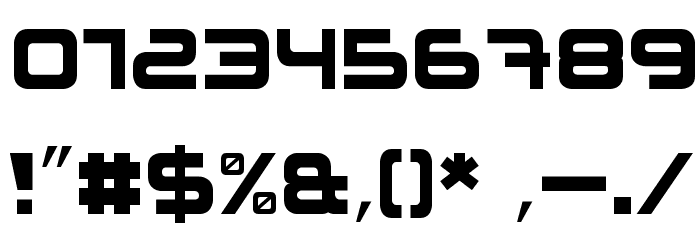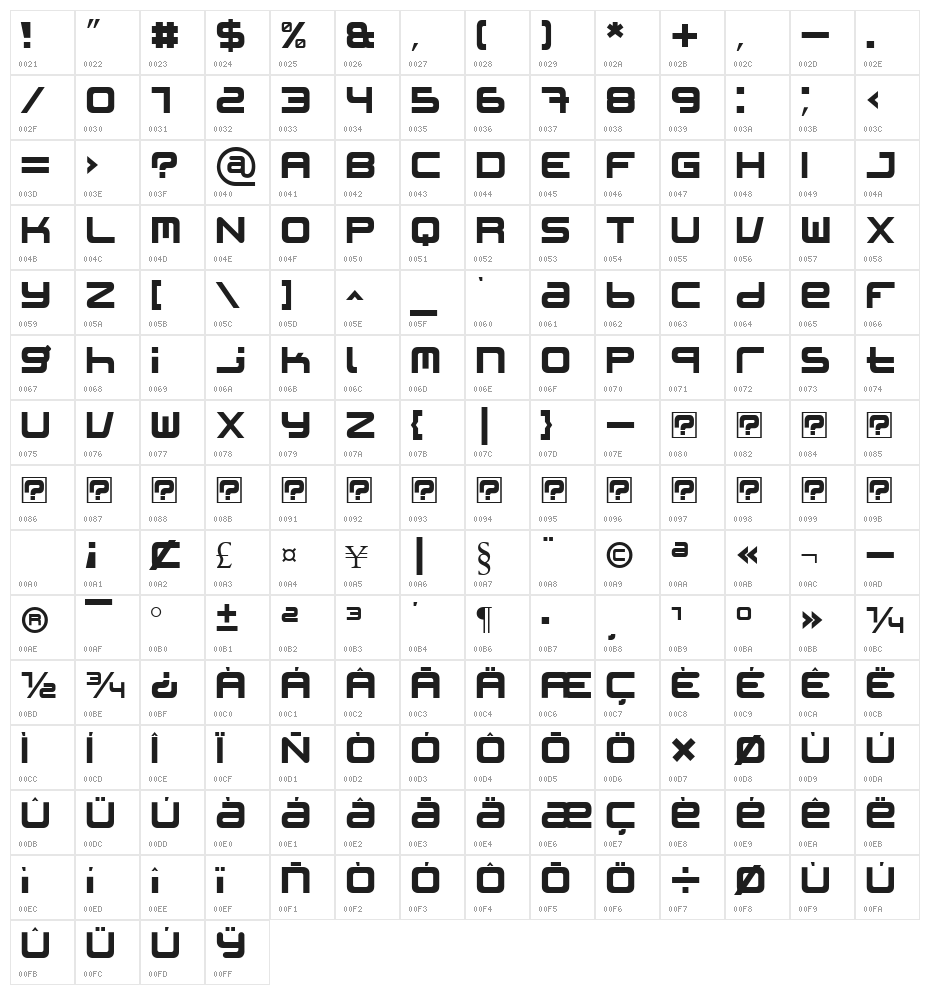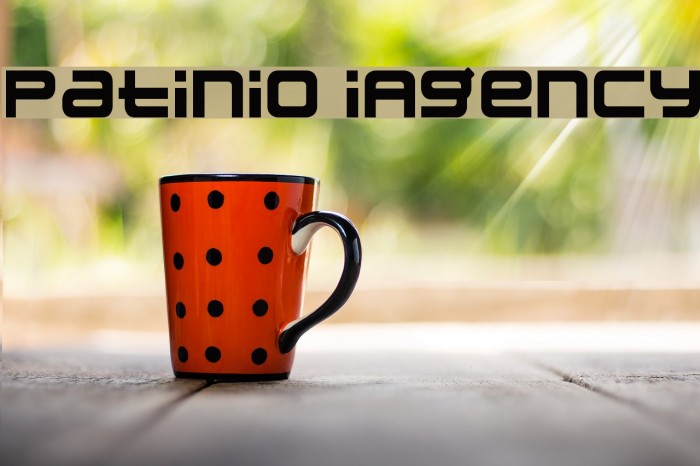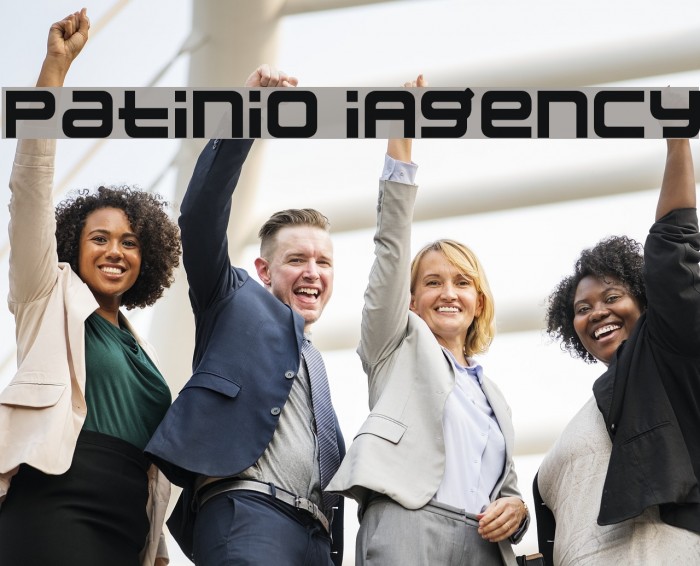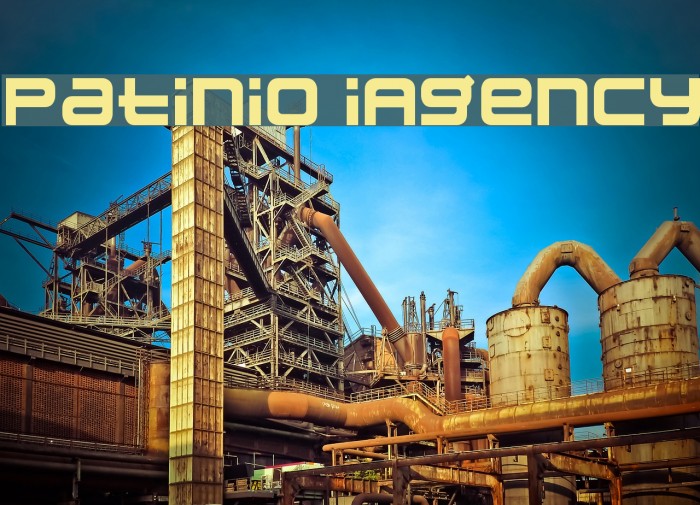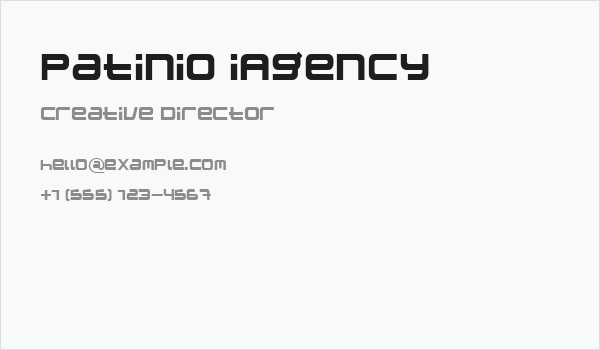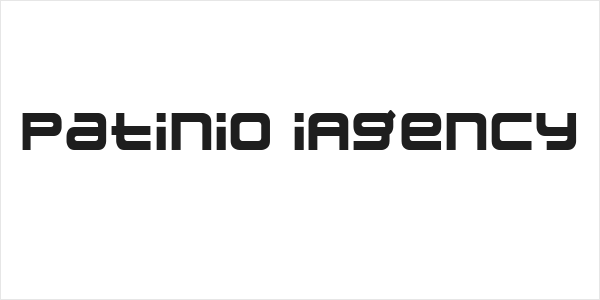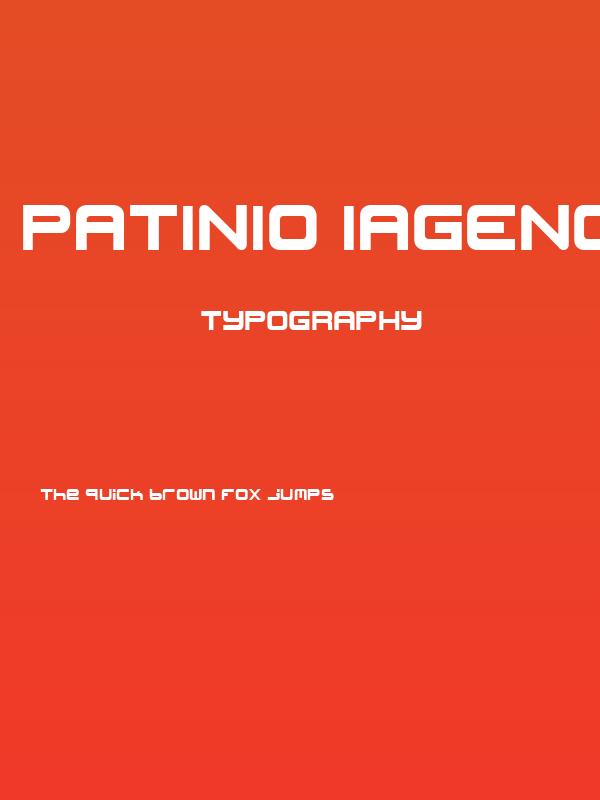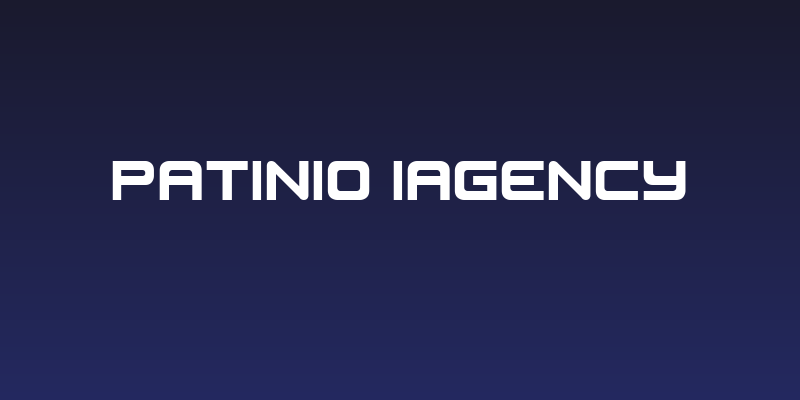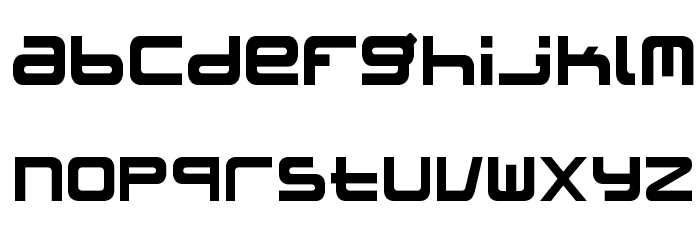
Patinio iAgency Font
Patinio iAgency Description
This font features a modern, geometric design with a bold and structured appearance. The characters are crafted with a uniform thickness, giving it a strong and cohesive look. The uppercase letters are distinct with sharp angles and straight lines, while the lowercase letters maintain a similar geometric style, providing a harmonious blend. The numerals and special characters follow the same design principles, ensuring consistency across all elements. This font's clean and futuristic aesthetic makes it suitable for contemporary design projects.
| Proposed Projects | Ideal for technology branding, modern advertising, digital interfaces, and futuristic design themes. |